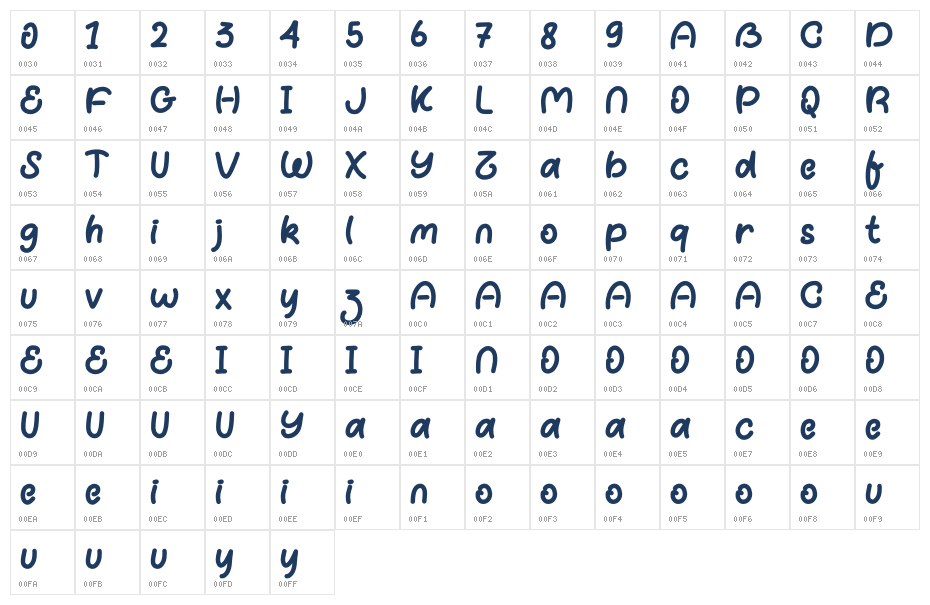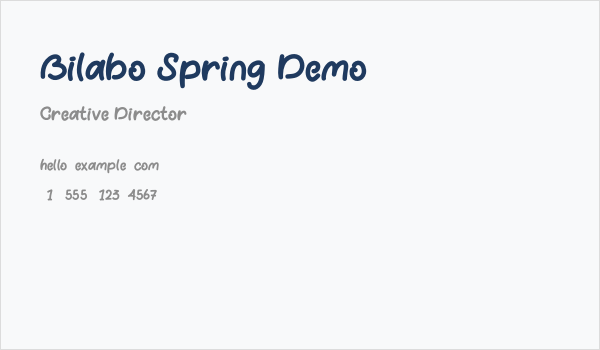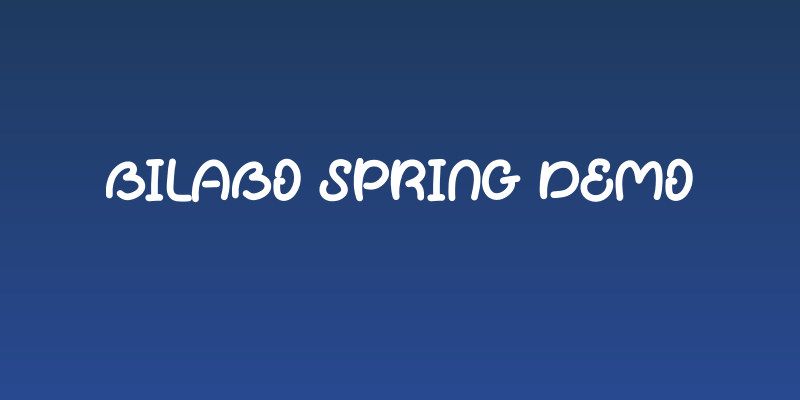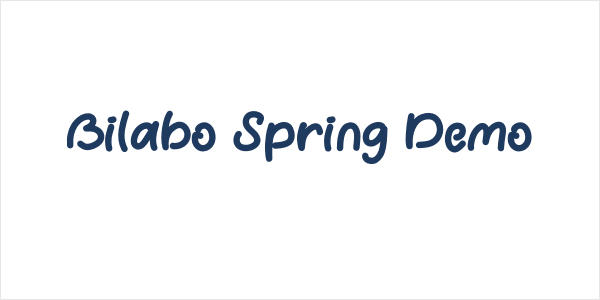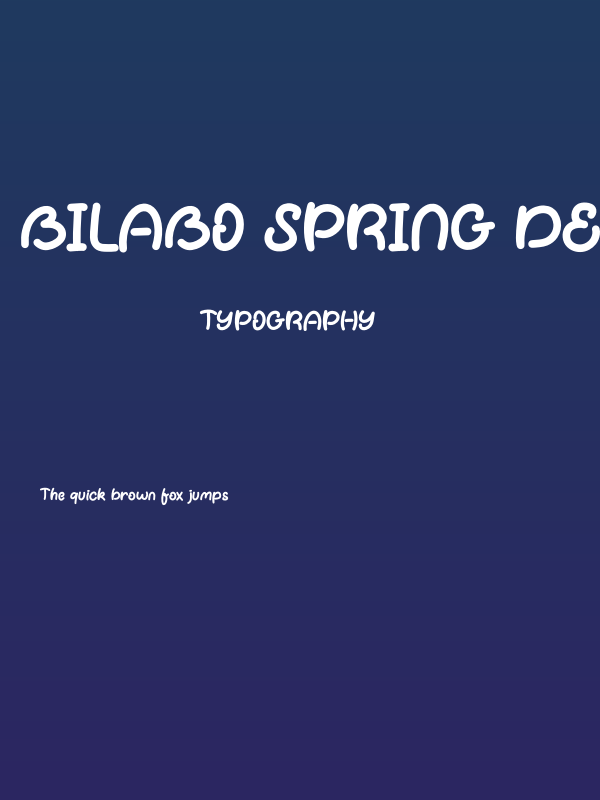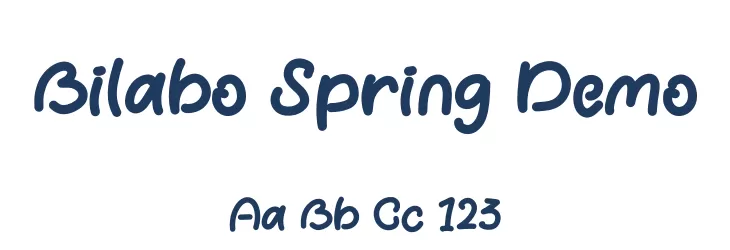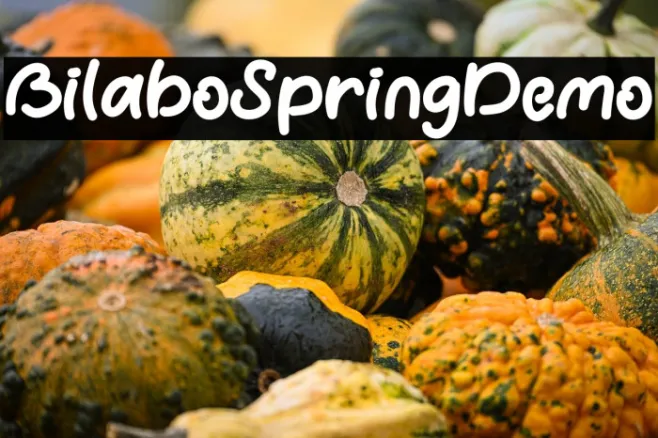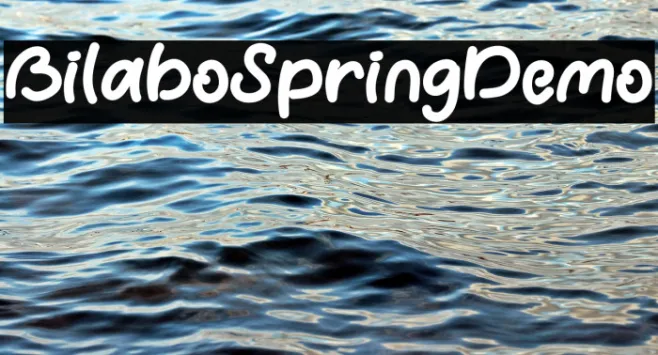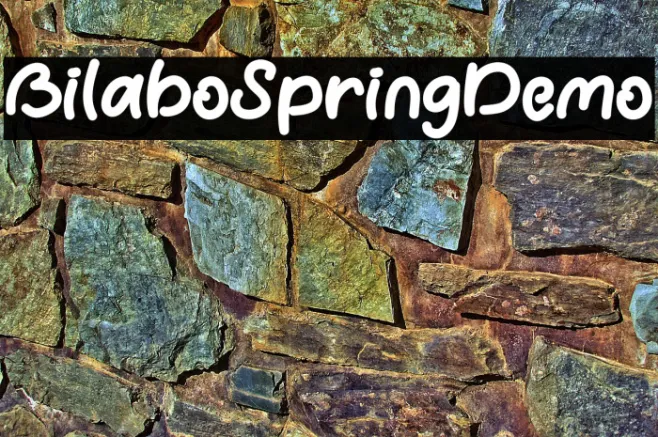
Bilabo Spring Demo Font
Bilabo Spring Demo Description
A playful, rounded, handwritten style font with a casual and friendly appearance.
| Overall Style | Casual, Friendly, Playful |
| Use Case | Headlines, Body text, Logos, Invitations |